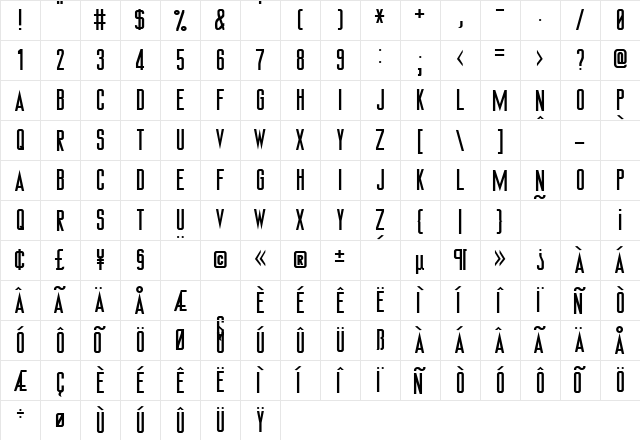
Hamsteade Regular
Design Context for Hamsteade Typeface
Hamsteade takes a measured approach to typography — its balanced proportions and neutral character make it a reliable workhorse for both digital and print work.